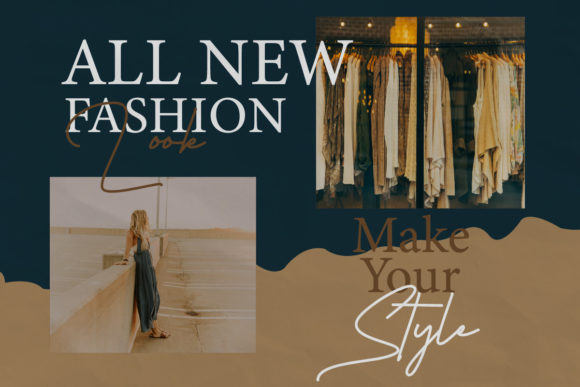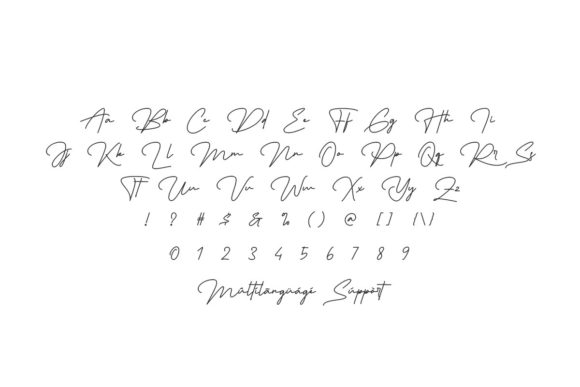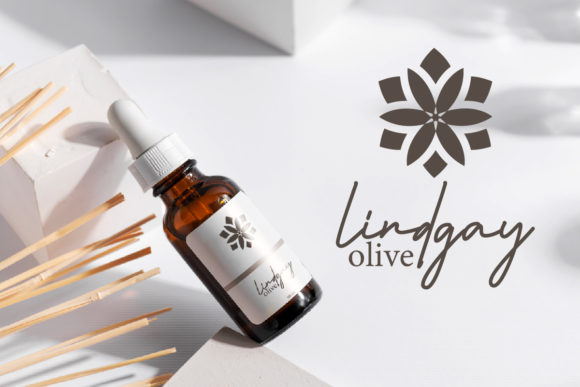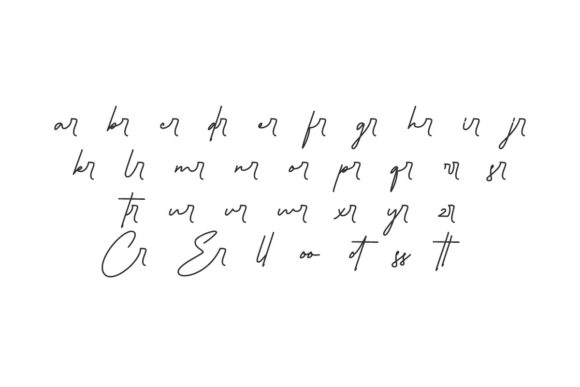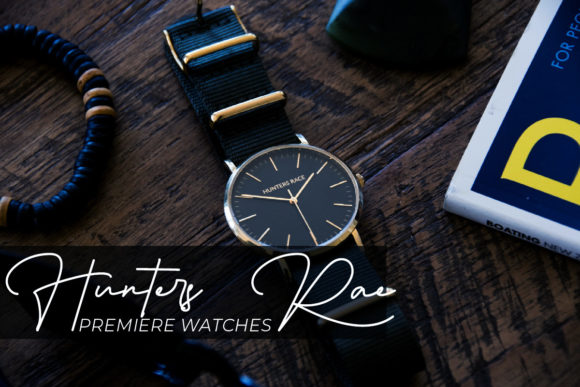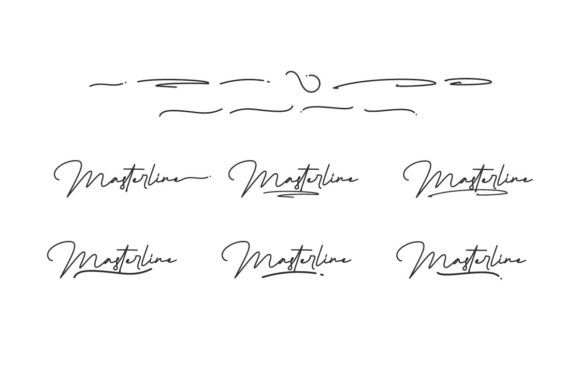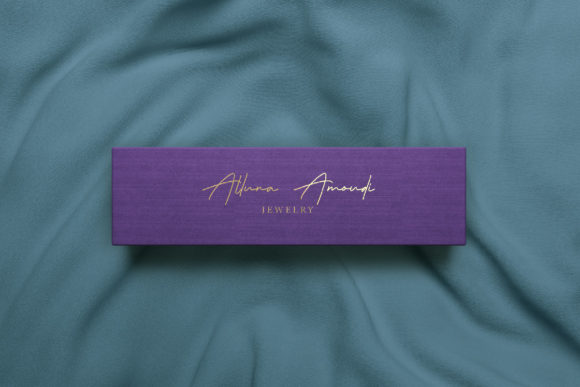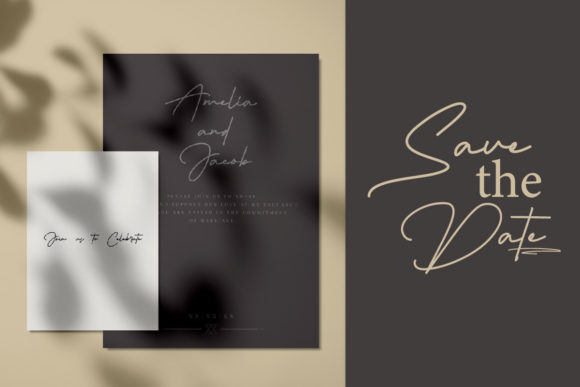
Masterline Font
About Masterline Font
Masterline is a delicate and fashionable script font. It is perfect for any branding project such as logos, t-shirt printing, creative products, and more. It will look extraordinary in a variety of contexts.